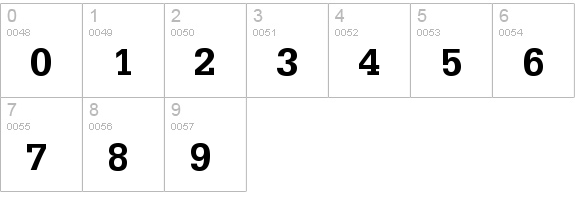
12 Serifa** 65 Bold 07235 is a strong, high-contrast variant in the 12 typeface family \xE2\x80\x94 well suited to headlines, attention-grabbing titles, and strong calls-to-action.
Serifa** 65 Bold 07235 font is a masterpiece in the world of typography. With its bold and confident strokes, this font exudes power and strength. The timeless elegance of Serifa** 65 Bold 07235 is complemented by its impeccable readability, making it the perfect choice for any project that demands attention. This font is not only visually stunning but also incredibly versatile. Whether you're designing a logo, creating a poster, or crafting a magazine layout, Serifa** 65 Bold 07235 will effortlessly enhance the overall aesthetic of your work. Its boldness will capture the viewer's eye, while its clarity ensures that your message is conveyed with utmost precision. What sets Serifa** 65 Bold 07235 apart from other fonts is its remarkable ability to evoke emotions. Its strong and commanding presence instills a sense of confidence and authority, making it ideal for corporate branding or any design that requires a touch of sophistication. At the same time, its subtle curves and delicate details add a touch of elegance and refinement, making it equally suitable for more delicate and artistic projects. The best part is, Serifa** 65 Bold 07235 is freely available to download at FontsMarket.com. This means that you can incorporate this stunning font into your creative endeavors without any cost or restrictions. Its availability allows you to explore its endless possibilities and unleash your creativity to the fullest. So, why wait? Download Serifa** 65 Bold 07235 font today and witness the transformative power it brings to your designs. Elevate your work to new heights of visual appeal and make a lasting impression on your audience. With Serifa** 65 Bold 07235, the possibilities are limitless, and the results are guaranteed to leave a lasting impact.